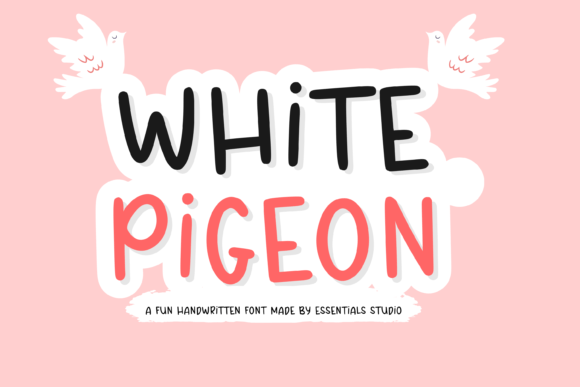
In a world saturated with monotonous, commonplace fonts, White Pigeon emerges as a refreshing oasis, a captivating display font that dances across the screen with its playful, handwritten charm. Its enchanting curves and whimsical strokes evoke a sense of nostalgia, harkening back to simpler times when penmanship was an art form.
Unlike other fonts that blend into the background, White Pigeon demands attention, its bold presence commanding the spotlight. Its crisp lines and effortless flow create an undeniable visual impact, transforming ordinary words into captivating works of art. Whether gracing product packaging, branding projects, magazine covers, or social media posts, White Pigeon elevates your designs, imbuing them with a touch of whimsy and heartfelt authenticity.
Step into a world where letters come alive, where every word carries a story, where typography transcends mere communication to become an expression of individuality and style. White Pigeon is your passport to this enchanting realm, a font that speaks volumes without uttering a single word. Its captivating strokes evoke emotions, ignite imaginations, and leave an indelible mark on the hearts of your audience.
With White Pigeon, you're not just downloading a font; you're embarking on a creative adventure, a journey where every design becomes a masterpiece. Its versatility knows no bounds, adapting seamlessly to diverse projects, each time infusing them with its unique charm. Whether you're a seasoned designer or just starting your creative journey, White Pigeon is the perfect companion, guiding you towards design excellence.
Its compatibility with various design software makes it an accessible tool for all, empowering you to unleash your creativity without technical limitations. White Pigeon is your gateway to a world of limitless possibilities, a font that transforms your digital dreams into tangible realities.
So, if you seek a font that breaks free from the mundane, that captures hearts with its playful spirit and undeniable magnetism, then White Pigeon awaits you. It's more than just a font; it's an experience, an emotion, a story waiting to be told. Embrace the White Pigeon today and embark on a creative odyssey that will leave you spellbound.